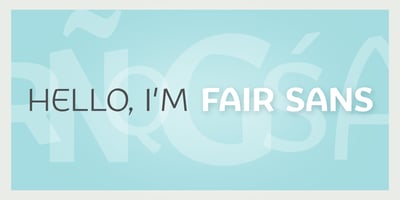
Fair Sans
Fair Sans font
Fair Sans Font Family was designed by Galen Lawson and published by District. Fair Sans contains 8 styles and family package options. Fair Sans is a distinctive sans-serif with much of its calligraphic structure left intact. Its casual construction and unconventional letterforms create a unicase family that’s relaxed and lively at the same time. Includes four weights and two widths, ligatures, and extras.